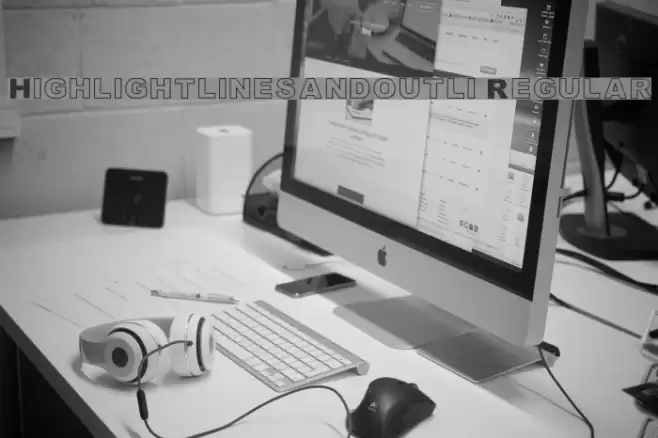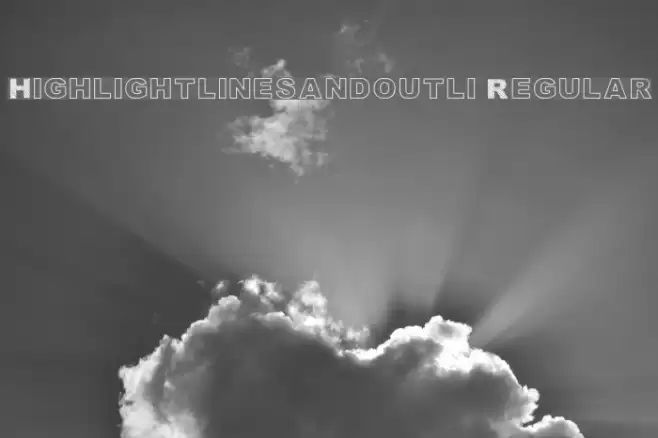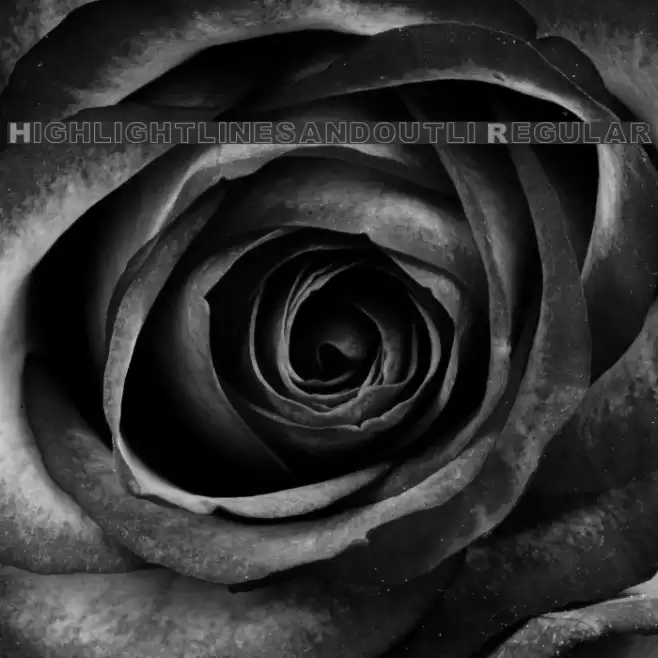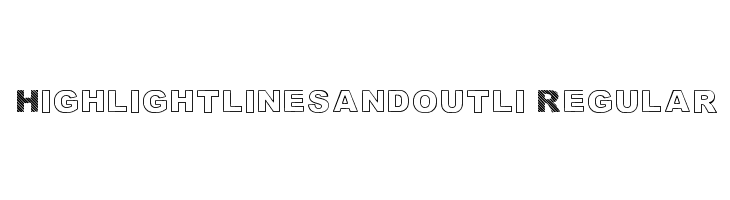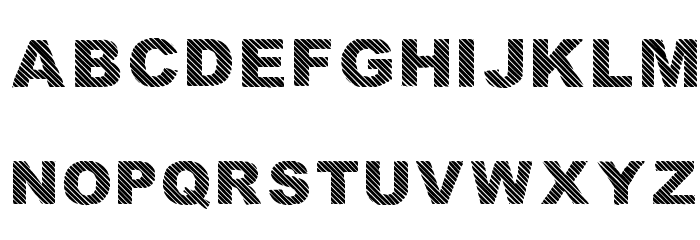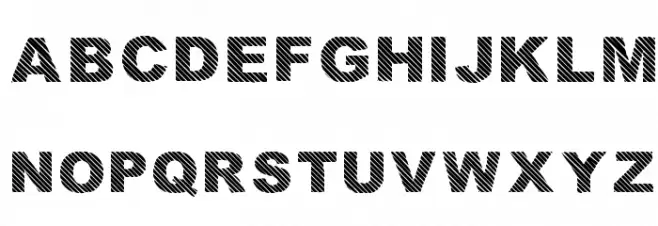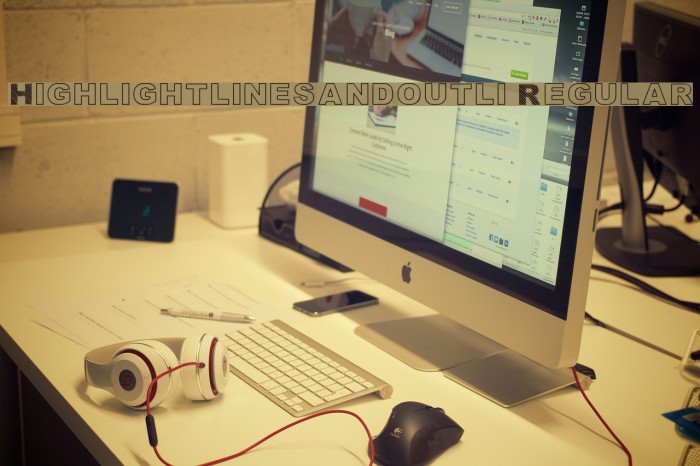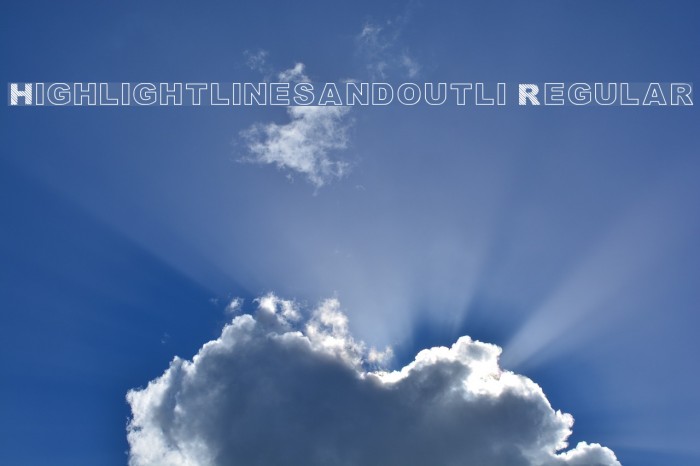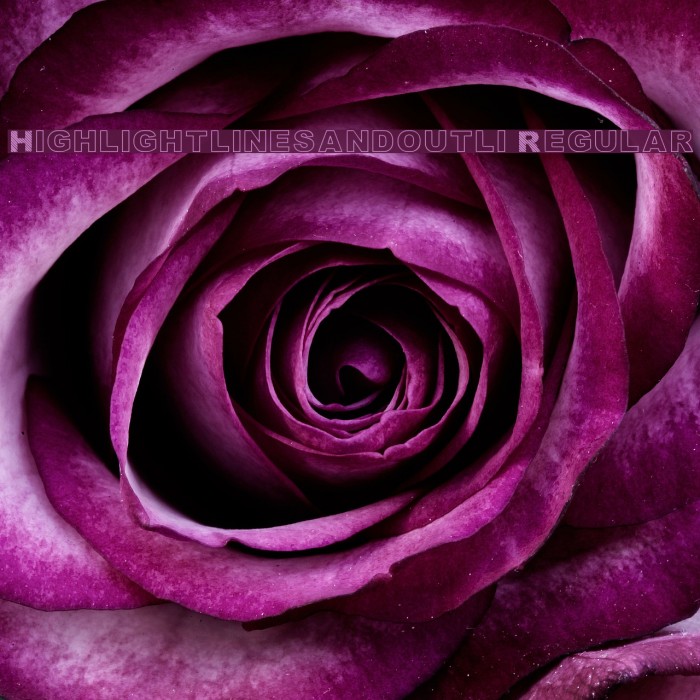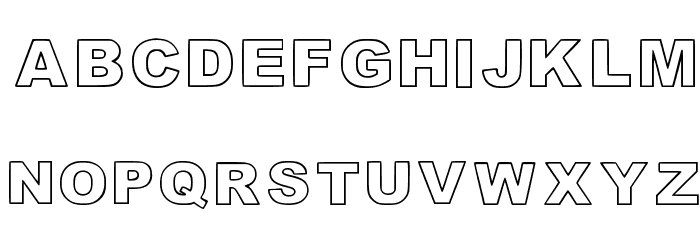
Highlight_linesandoutli Regular Font
Highlight_linesandoutli Regular Description
This font features a bold, decorative style with a unique pattern of diagonal lines filling each character, creating a dynamic and eye-catching effect. The uppercase letters are prominent and well-defined, making them suitable for attention-grabbing headlines or titles. The font also includes an outlined version, providing versatility in design applications. The characters are evenly spaced, ensuring readability while maintaining a strong visual impact. This font's distinctive style makes it ideal for projects that require a modern and artistic touch.
A bold, decorative font with diagonal line patterns and outlined versions from Uncategorized fonts.